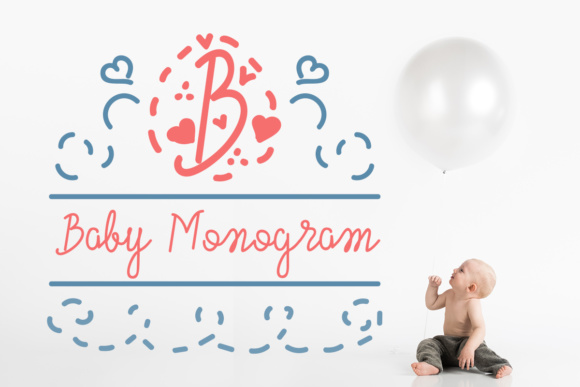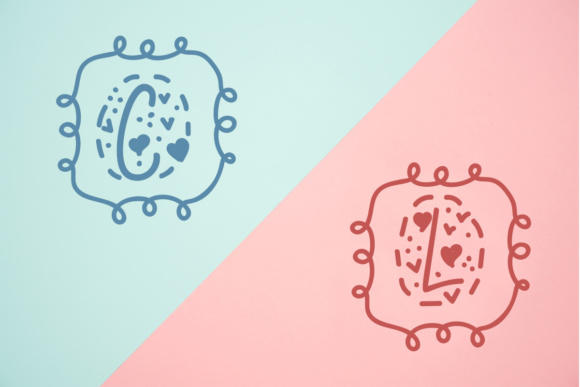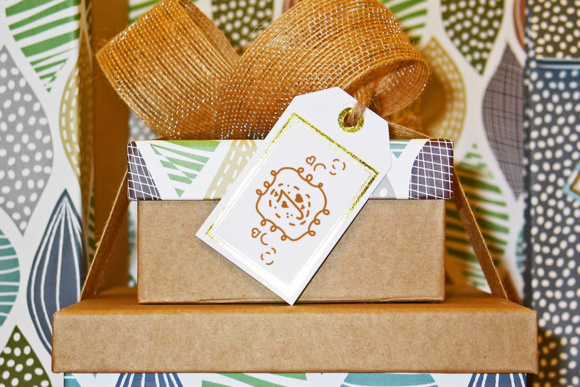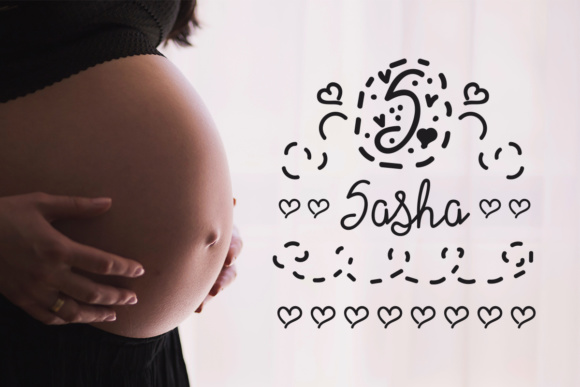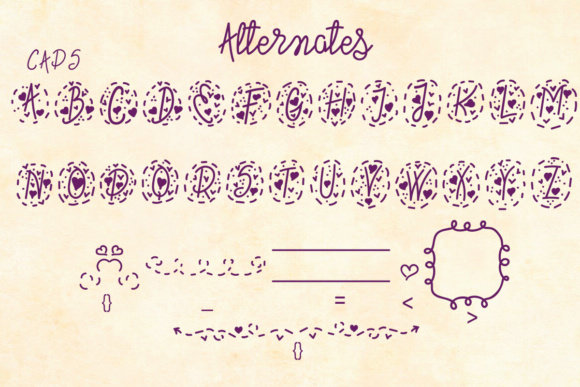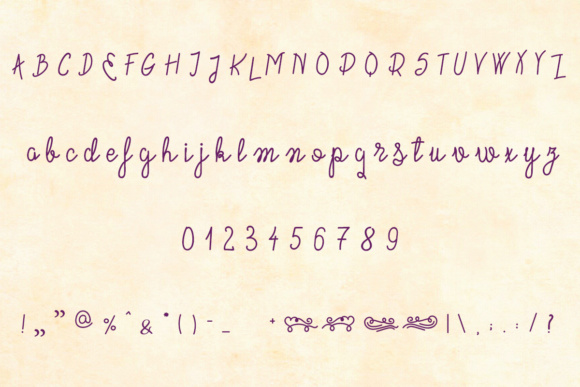
Baby Monogram Font
About Baby Monogram Font
The sweet Baby Monogram font is a decorative font where the capital letters consists out of decorative monogram frames packed with hearts.
Perfect for creating kid-themed designs, baby shower invites, nursery decorations and much more.